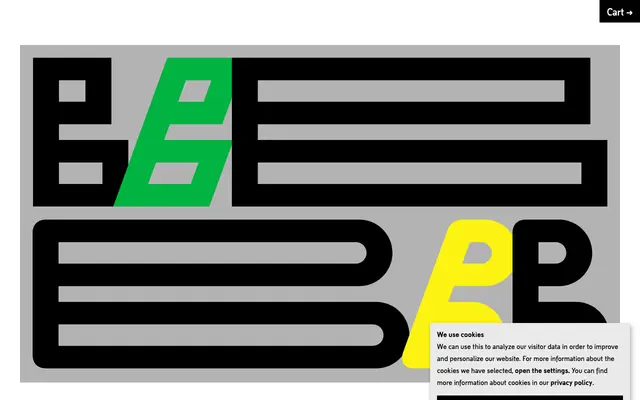
Balkenschrift Standard
A systematically constructed geometric sans built on a straight-bar principle, spanning six weights, four widths and a rounded subfamily — available as variable fonts with weight, slant and width axes.
Each letterform follows a strict horizontal-bar construction with near-uniform strokes, and the family extends across Standard, Wide, Extra Wide and Ultra Wide widths, all included at no extra cost with any weight purchase. A Rounded subfamily mirrors the full weight and width range, though the two families do not interpolate between each other in the variable font. Alternate characters via ten stylistic sets, oldstyle figures, circled numerals and case-sensitive forms give the family considerable typographic depth for such a rule-bound design.
Balkenschrift is built on a strict horizontal-bar principle with near-uniform stroke widths, placing it firmly in the geometric sans category. The squared, constructed letterforms and optional rounded variant reinforce a modernist, systematic design logic.